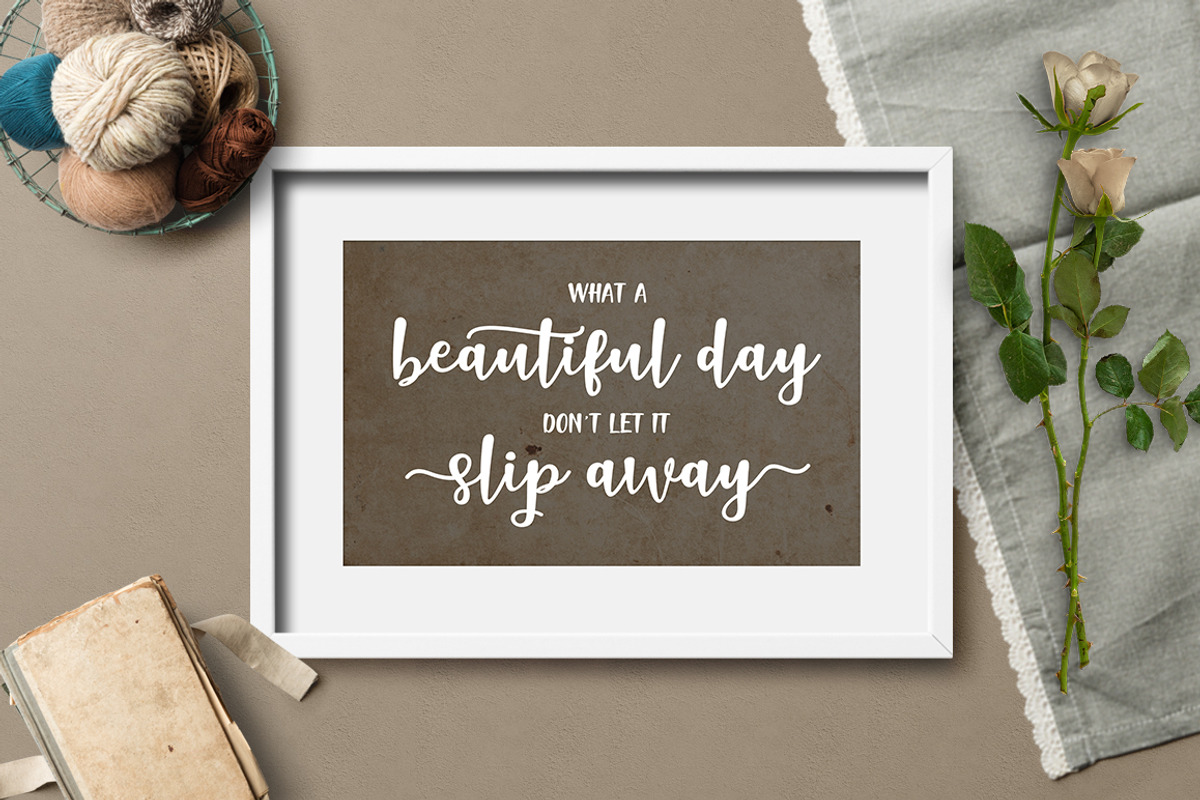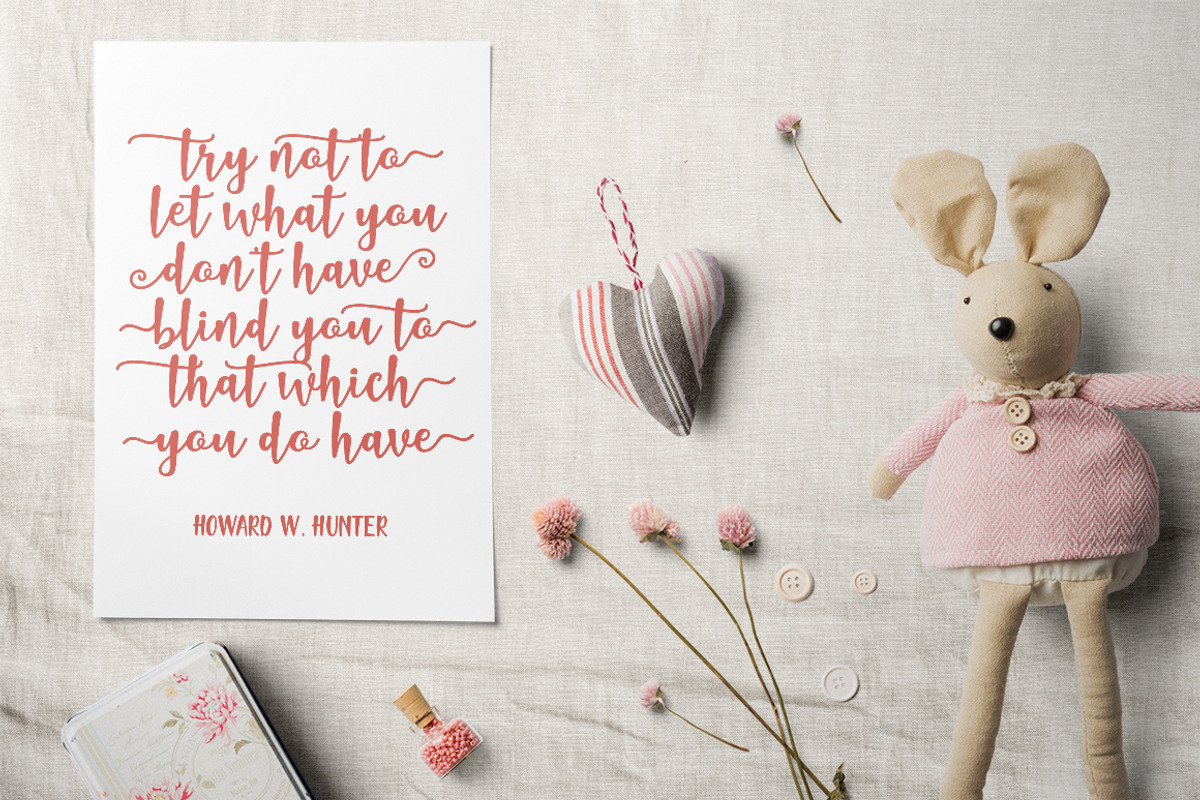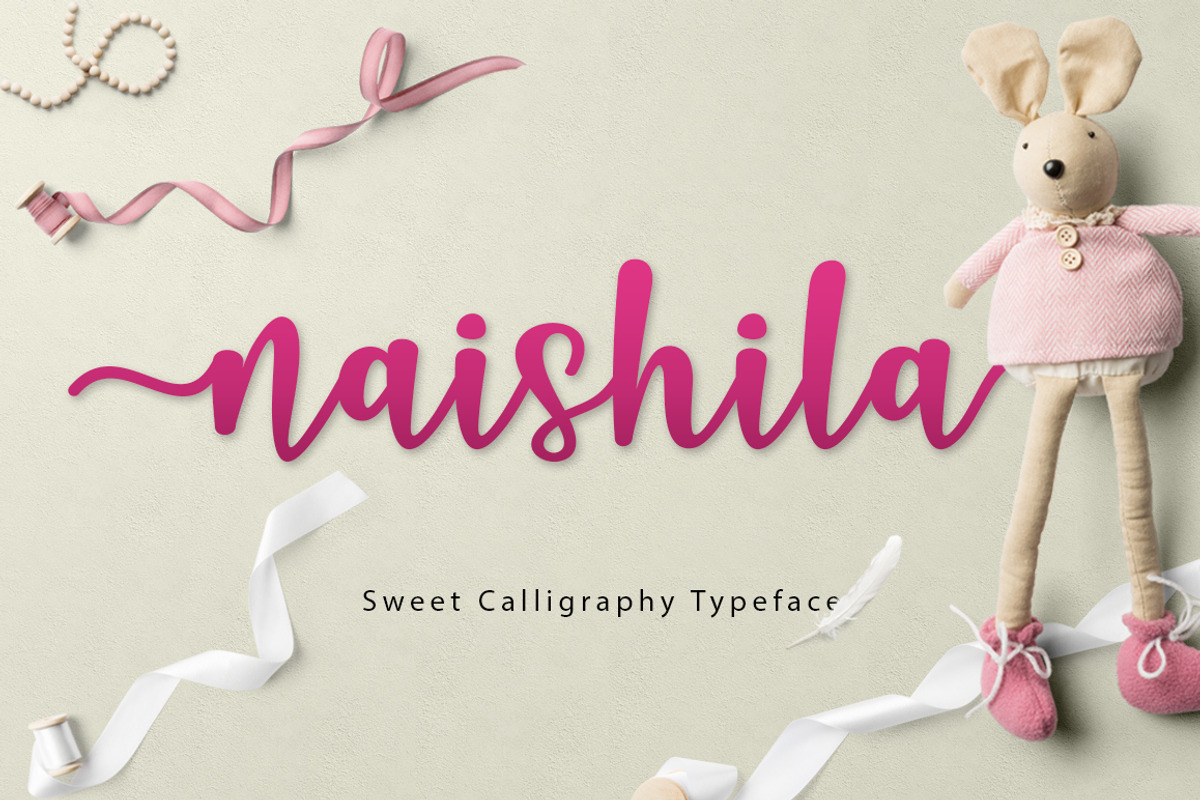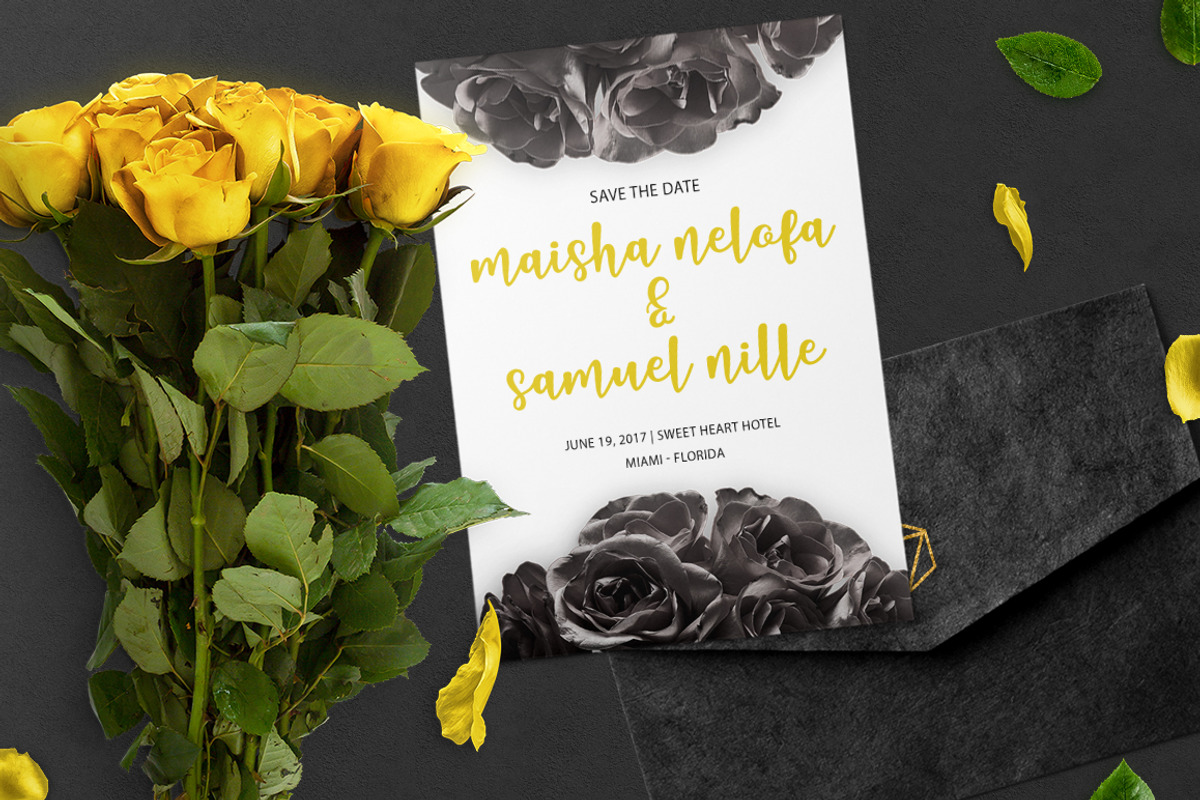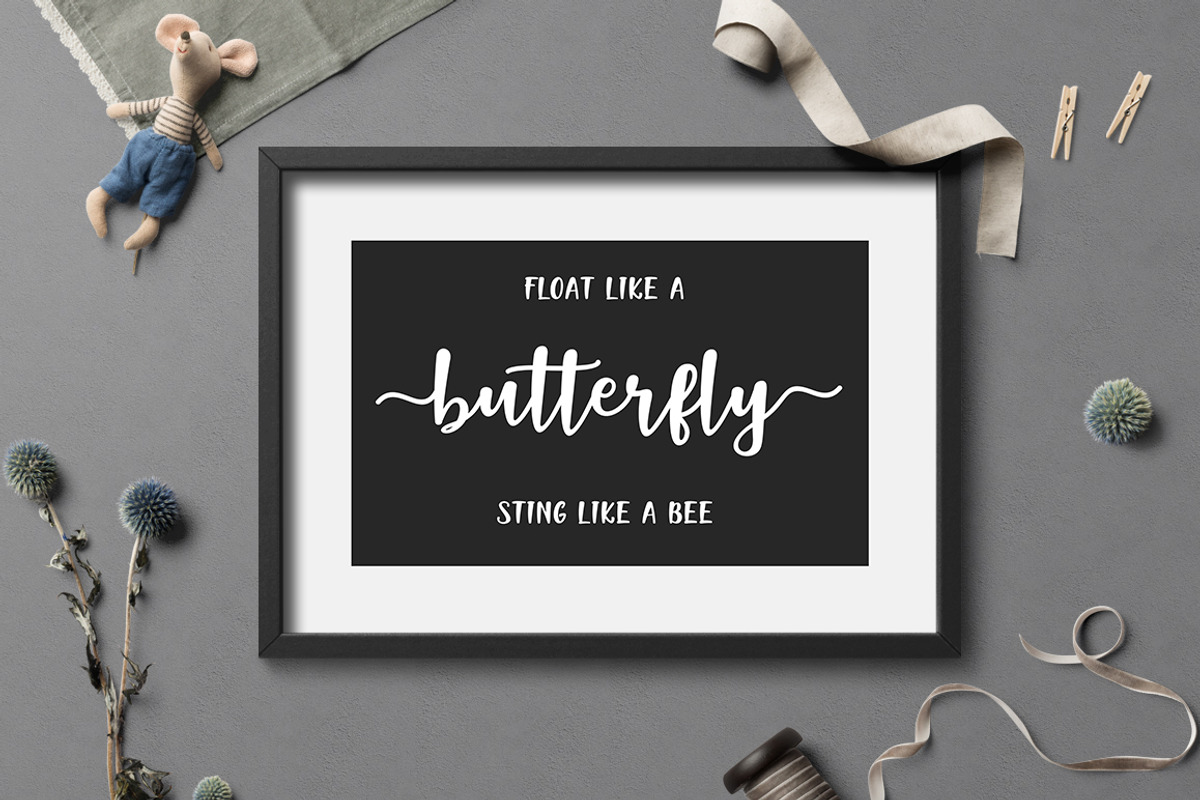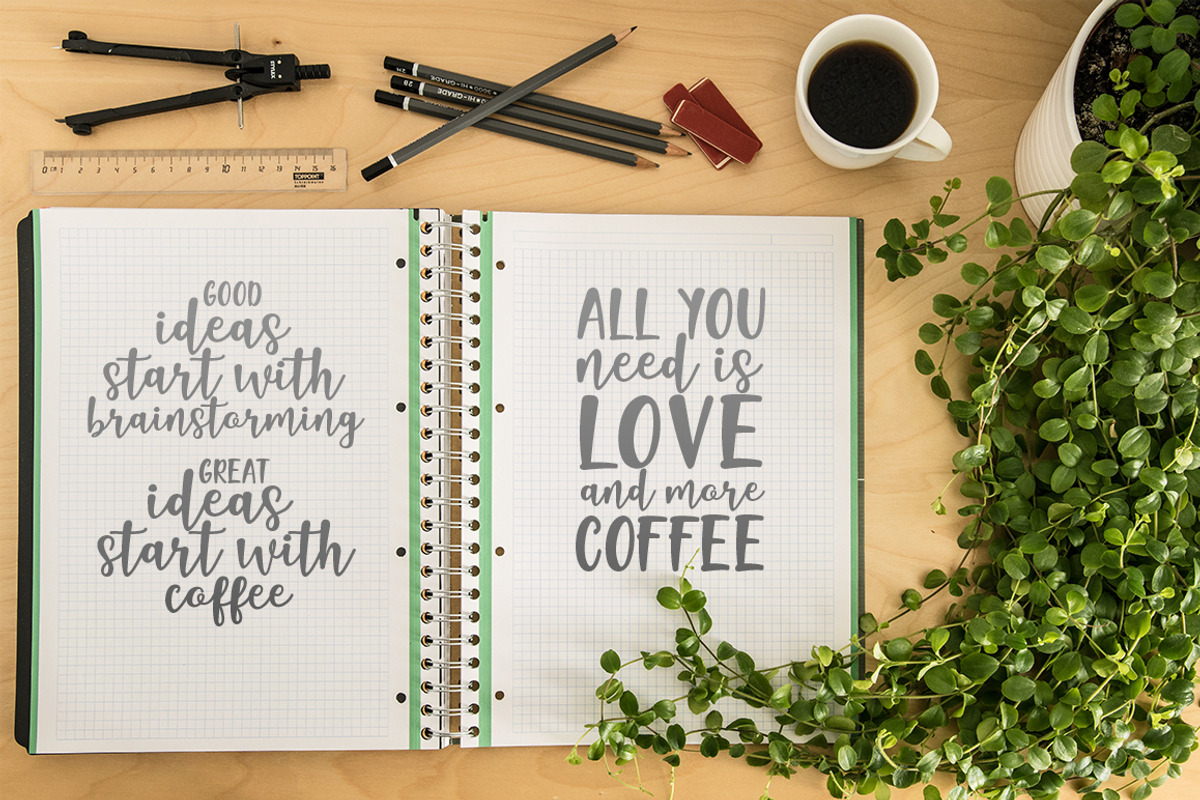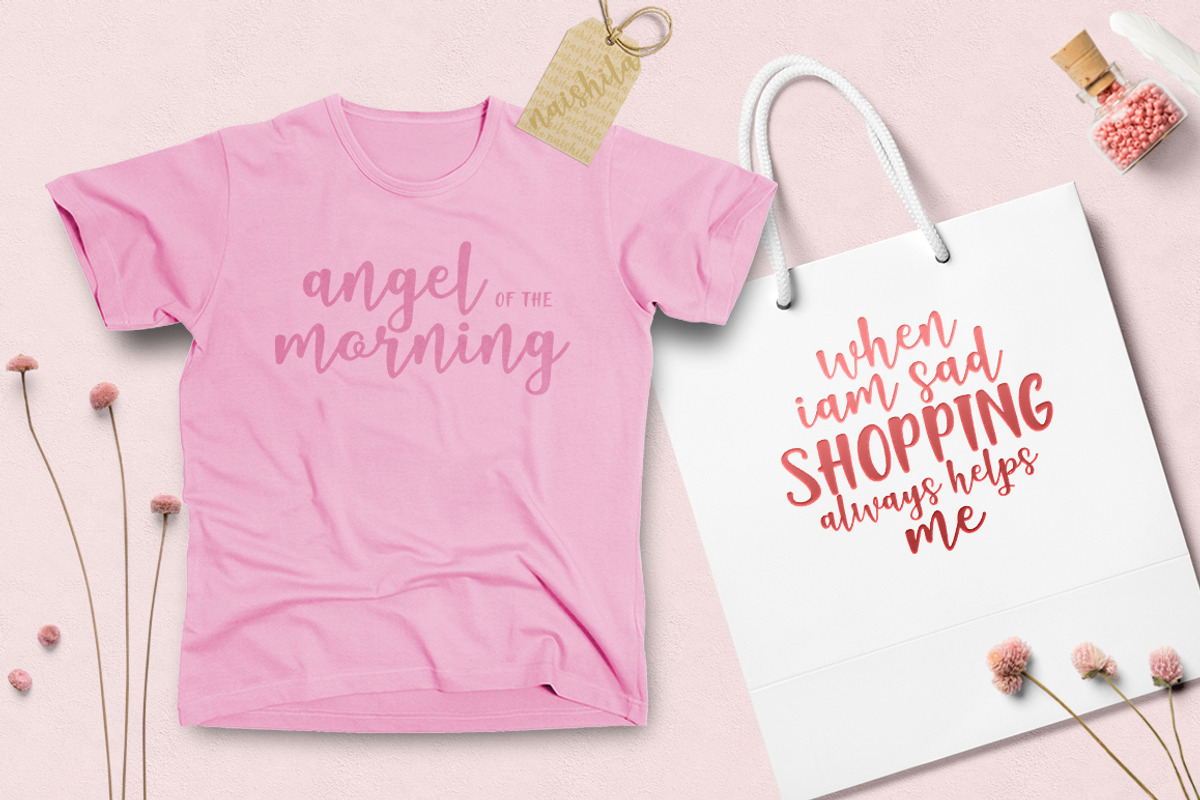
Naishila Font Duo
Naishila Font Duo by FadeLine Studio is a font selected for branding, posters, packaging, typography.
- The script comes with stylistic sets and ligatures.
- Contains the complete set of lower and uppercase letters, punctuation, numbers, web fonts, and multilingual support.
- This font also includes several ligatures and alternative style Stylistic Set For those of you who have software that is capable of working
Naishila Font Duo by FadeLine Studio fits naturally into Branding, posters, packaging, typography.